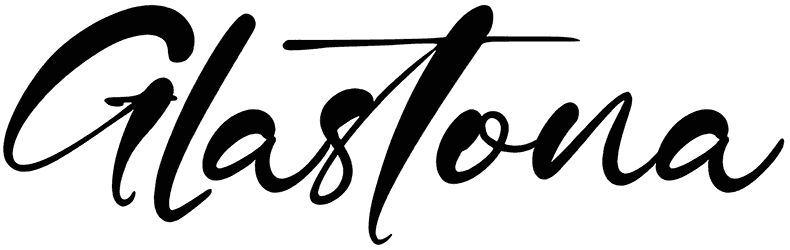
Glastona Font
Surely a modern and realistic letterform will serve you as a perfect style for varied creative designs. This calligraphy font has a cool and urban visual, and it supports almost all characters. If you like to see the final show, use the Glastona font for your party flyer, art gallery invitation card, and so on, and enjoy the feedback.